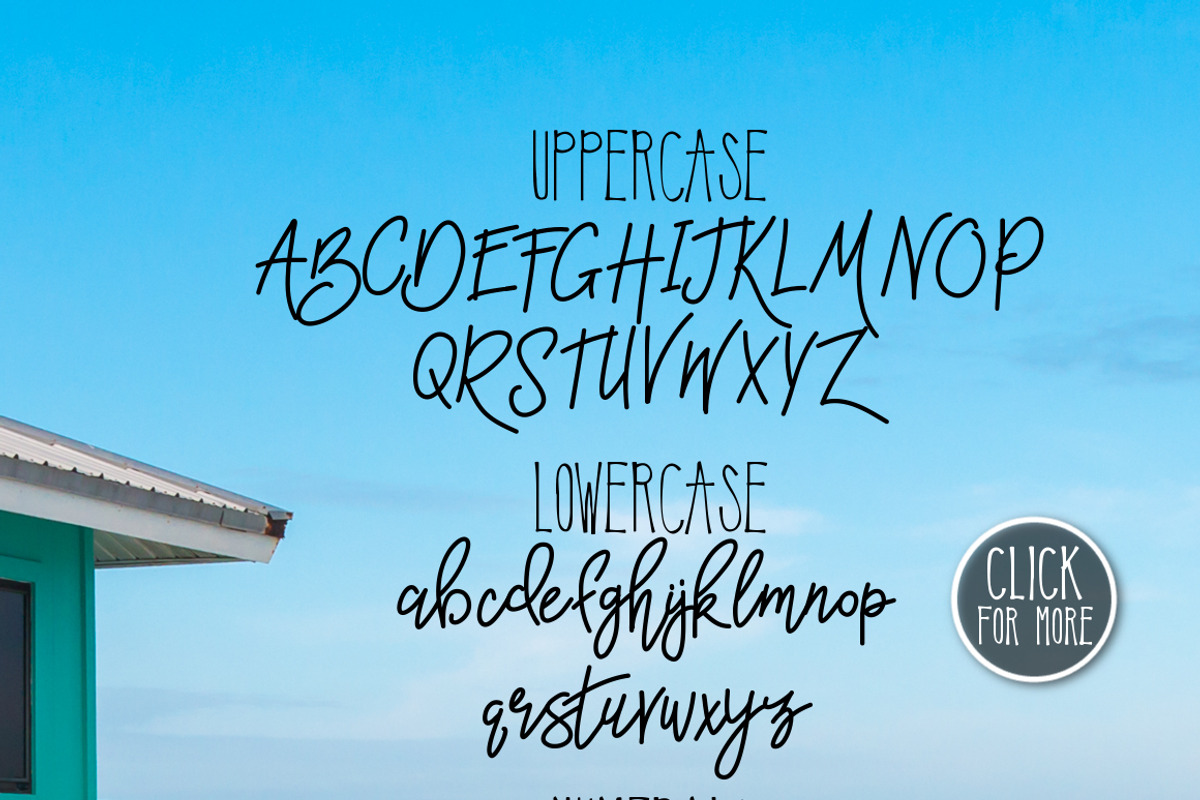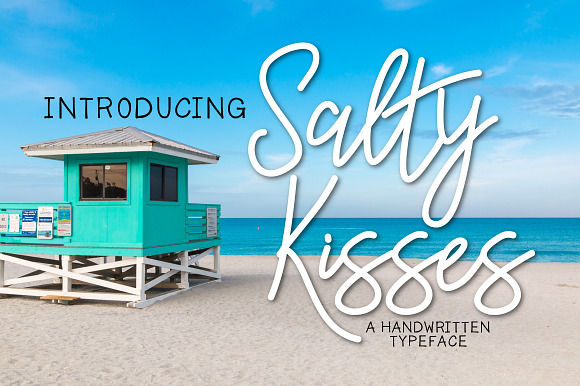
Salty Kisses A Handwritten Typeface
This font is perfect to add to any project.
Why Salty Kisses A Handwritten Typeface is worth a look
Salty Kisses A Handwritten Typeface by Kitaleigh fits naturally into Branding, posters, packaging, typography.